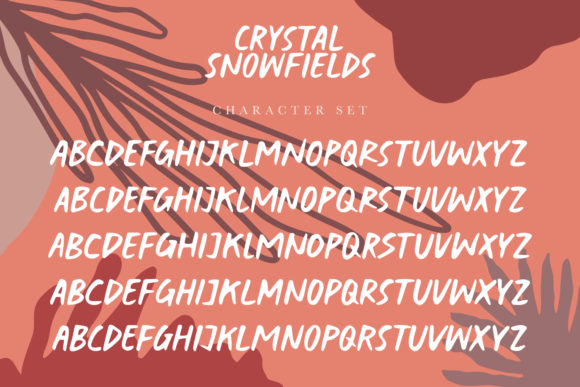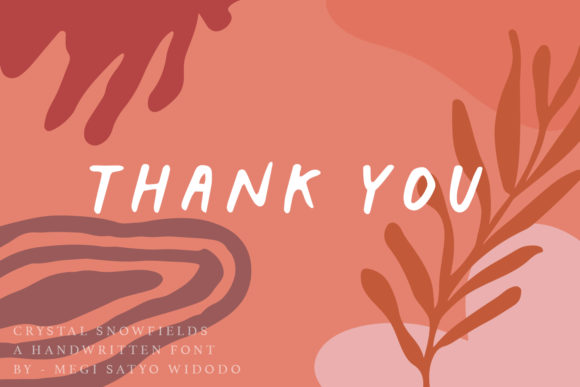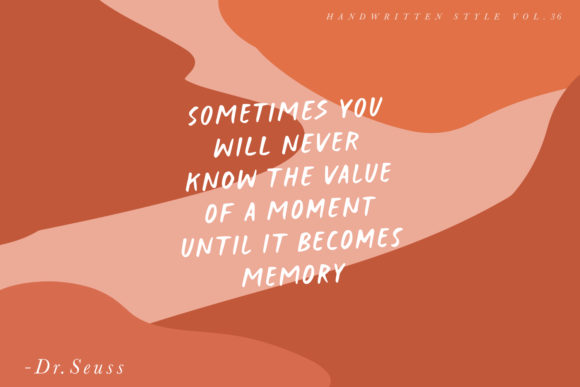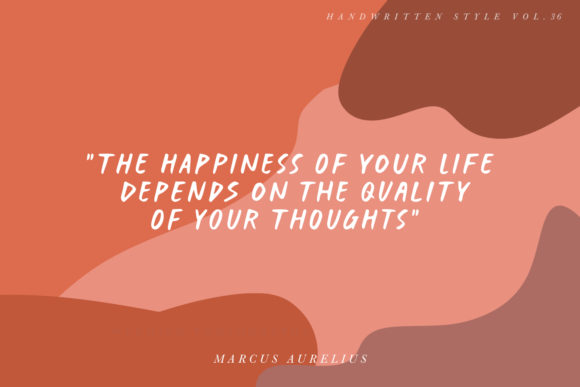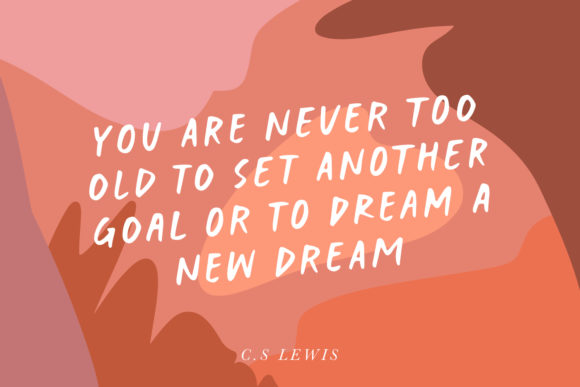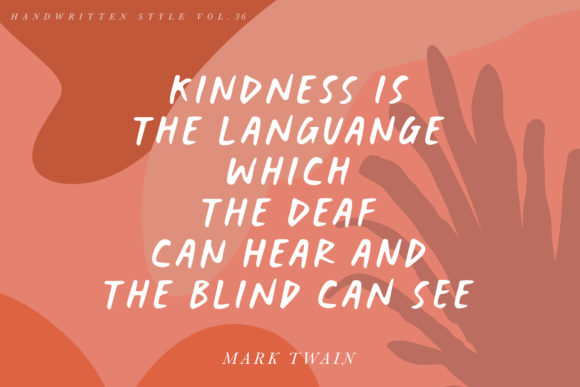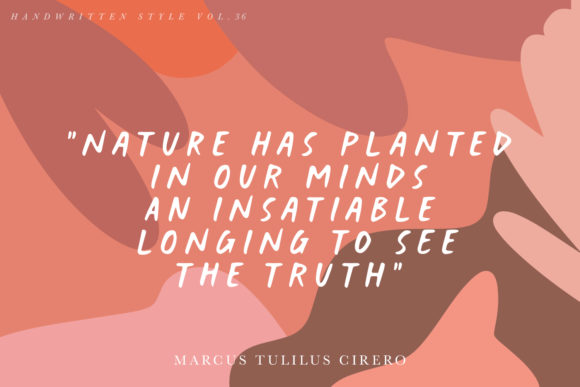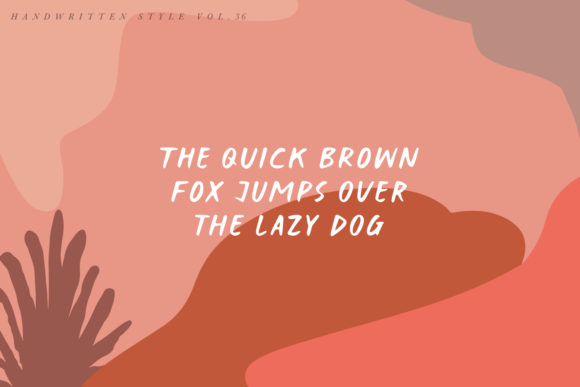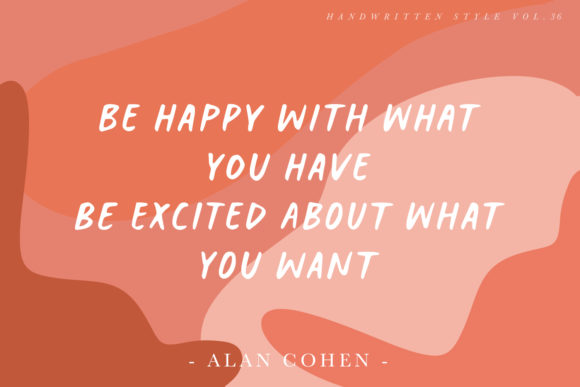
Crystal Snowfields Font
About Crystal Snowfields Font
Crystal Snowfields is a sweet and friendly handwritten font. Its natural and unique style makes it incredibly fitting to a large pool of designs. The only limit is your imagination!